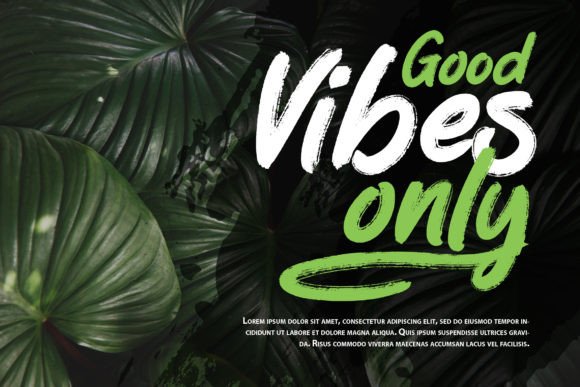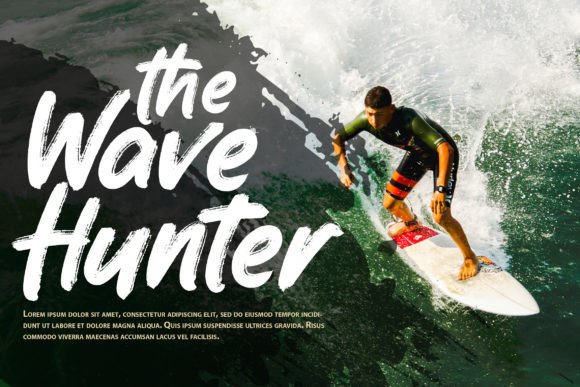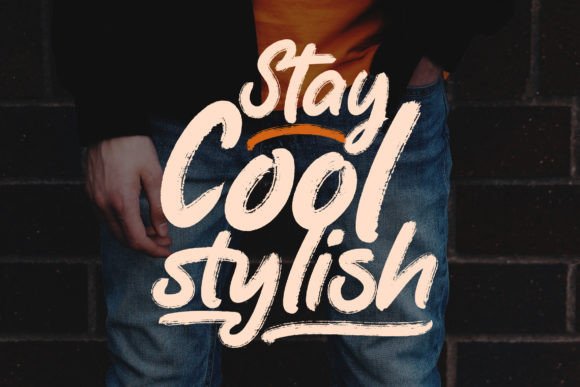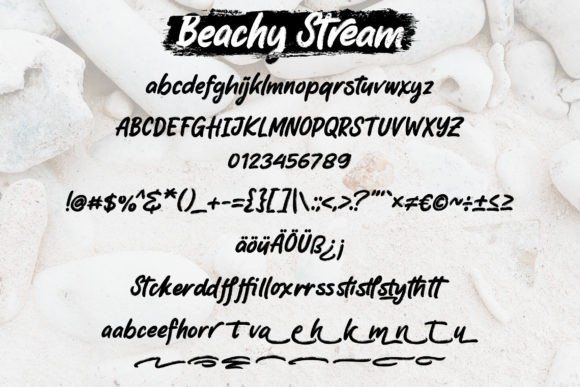
Introducing Beachy Stream Font: Elevate Your Designs with a Unique Textured Style
Are you tired of using the same old fonts in your designs? Look no further than Beachy Stream Font, a game-changing addition to any creative project. This beautifully crafted font combines texture with supreme legibility, making it perfect for both large display texts and small body texts. Its unique charm and versatility are sure to make your designs stand out from the crowd.
What Makes Beachy Stream Font So Special?
Beachy Stream Font boasts a distinctive textured appearance that adds depth and character to any design. Whether you’re working on a bold display text or a detailed body text, this font delivers exceptional clarity and readability. Its versatility is one of its standout features, allowing designers to use it confidently across a wide range of projects.
Key Features of Beachy Stream Font
- Textured yet Legible: The font’s unique texture does not compromise on readability, making it suitable for various design needs.
- Versatile: It can be used for both large and small designs, including display texts and body texts.
- PUA Encoded: Beachy Stream Font is PUA (Private Use Area) encoded, which means you can easily access all the glyphs and ligatures. This feature is particularly useful for designers who want to add a personal touch to their work without the hassle of complicated font management.
Applications of Beachy Stream Font
The applications of Beachy Stream Font are vast and varied. Here are a few ideas to get you started:
- Branding: Use Beachy Stream Font to create memorable logos and brand names that stand out.
- Web Design: Enhance your website’s typography with this unique font, making your content more engaging and readable.
- Print Design: Whether it’s brochures, posters, or business cards, Beachy Stream Font can add a touch of elegance and texture to your print materials.
- Crafting and DIY Projects: For crafters and DIY enthusiasts, this font can be used in various projects such as handmade cards, scrapbooking, and more.
Why Choose Beachy Stream Font?
In a world where design trends are constantly evolving, having a font that can keep up with your creative demands is invaluable. Beachy Stream Font offers:
- Uniqueness: Stand out with a font that is not commonly used, giving your designs a fresh look.
- Quality: High-quality fonts like Beachy Stream can significantly elevate the professional look of your projects.
How to Get the Most Out of Beachy Stream Font
To truly benefit from Beachy Stream Font, experiment with different sizes, colors, and design combinations. Here are some tips:
- Mix and Match: Combine Beachy Stream Font with other fonts to create a unique visual hierarchy.
- Play with Colors: The textured nature of the font makes it perfect for experimenting with various color schemes.
- Utilize Ligatures: Take advantage of the PUA encoding to access and use ligatures and glyphs, adding more creativity to your designs.
Beachy Stream Font is more than just a font; it’s a design statement. Its textured yet supremely legible style, combined with PUA encoding for easy access to glyphs and ligatures, makes it a valuable asset for any designer or crafter. Whether you’re looking to elevate your professional designs or add a personal touch to your crafting projects, Beachy Stream Font is sure to deliver impressive results. So why wait? Add Beachy Stream Font to your creative arsenal today and experience the difference it can make!